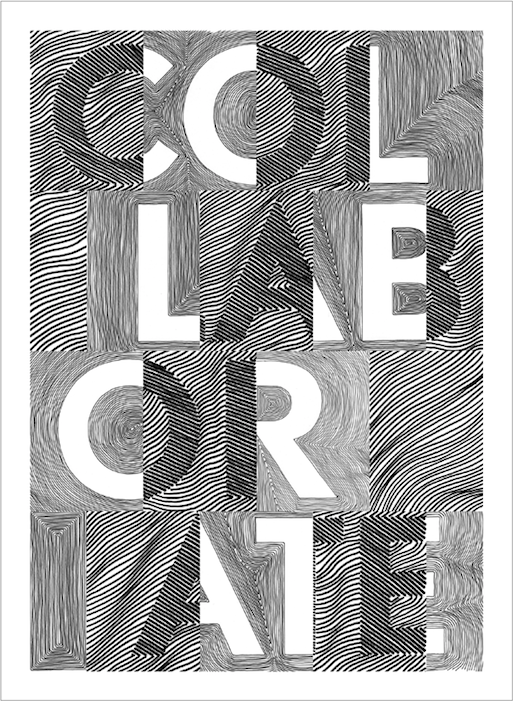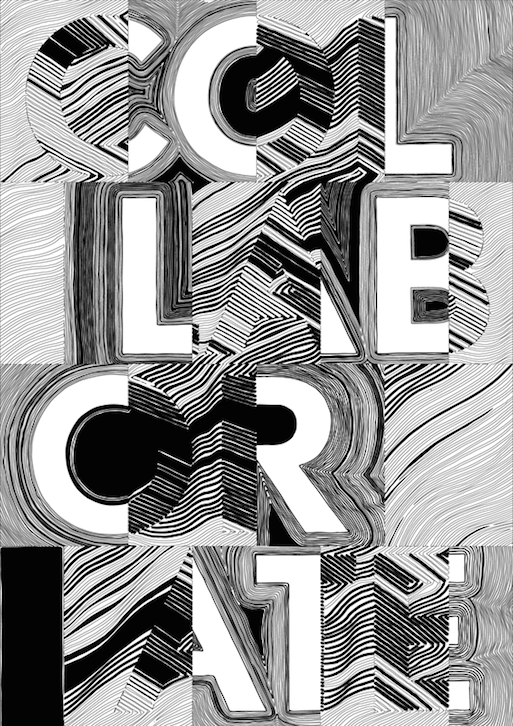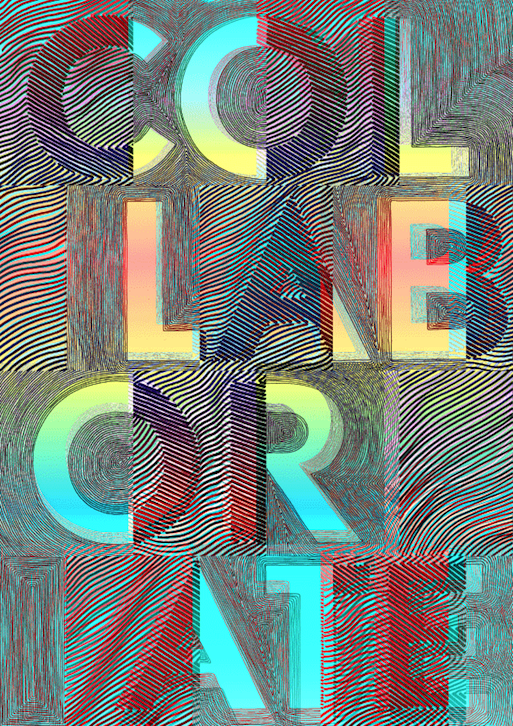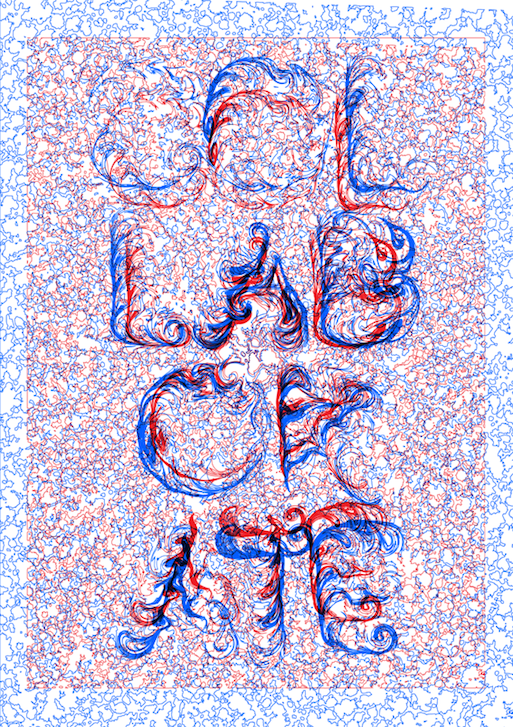
Suzanne Bakkum and Koos Breen are a league of their own
He is into experimenting within his craft’s boundaries, confronting the limits of the medium. She is concerned with pattern and texture. They both like to create typographic projects from complex arrangements. Suzanne Bakkum and Koos Breen met at the Royal Academy of Art in The Hague, the Netherlands, where they both studied Graphic Design and graduated last July (2014). Collaborate is their first project they collaborated on. Wallpaper magazine featured them on it’s Graduate Directory for 2015. “Today’s graphics graduates are faced with the daunting task of finding their feet in a field that has expanded way beyond the tactility of two-dimensional media into a digital realm of virtual space and interactivity” writes Jonathan Bell on the curated portfolio of excellence in Visual Communications. So when TYPEROOM asked them to reflect on this collaboration, they responded instantaneous. This is the story of their design partnership in their own words.
"Hello! We are Koos Breen and Suzanne Bakkum. We met at the Royal Academy of Art in The Hague, the Netherlands, where we both studied Graphic Design and graduated last July (2014). Collaborate is the first project we collaborated on, way back in 2012. We were asked by Typeroom to reflect on this collaboration.
K: How did we ever get started on this project?
S: It all started with Bruce Mau…
K: Oh, yeah. It was an assignment for Typography class, taught by Pieter Boddaert: design a poster based on one of the rules of the Incomplete Manifesto for Growth.
S: You picked rule number 16. Collaborate: The space between people working together is filled with conflict, friction, strife, exhilaration, delight, and vast creative potential. You asked me if I wanted to collaborate with you.
K: It was the perfect excuse to work together, because I thought you were the bomb.
S: Haha I was very honored. :)
K: Haha. Don’t mess with me.
S: I’m not messing with you, I’m being dead serious.
K: We decided to create a poster every week, and they would represent different ways of collaborating. We gave ourselves one hour per step.
S: Every week we would come up with a number of rules. We could design ‘freely’ within these rules and work separately from each-other.
K: I think rules are necessary to be able to work together if you haven’t before. Otherwise it’ll turn into a battlefield. Which it did.
S: It did! But maybe we should start at the beginning.
K: The first poster, I don’t even want to look at it. It was so bad. Unbelievable. Are we really publishing this?
S: It’s so bad! Looking back I like the sketches better than the final result. Which rules did we apply to this one?
K: We agreed we wouldn’t see each other’s work in advance. We would both make a sketch of the word “collaborate”, and then just superimpose them. Something we wouldn’t usually do.
We didn’t really collaborate. We just hoped the two layers would create something cool together, but the result was saddening.
But yeah – how could you make a good poster in a couple of hours?
S: I believe you can make a good poster in a couple of hours, but it’s a big gamble for each to make typographic posters separately and then superimpose them. The result wasn’t well-thought-out, and what came out was totally random.
K: I hate random.
S: Hahaha, I know!
--
S: Anyway, on to the second poster.
K: The second poster had us warring. I think we had agreed that one of us would start, work on it for an hour, email it, and then the other would work on it for an hour and send it back. We would do this four times and then it would be finished.
But we hadn’t talked about whether or not we could undo each other’s steps.
S: You took the first step; deciding the typo should read COL LAB OR ATE which was something from the first poster. We stuck to that.
K: I like weird breaks.
S: And those Sottsass portfolio patterns.
K: Oh, yeah, I wanted the typography to take shape from that pattern. Were you the one that brought in the depth?
S: No.
K: What? Then what did you do?
S: Hahaha, I made outlines of the Sottsass pattern – in the second step.
K: Yeah! That was a good step.
S: You applied depth in the third step, and then I smashed that poster to pieces, remember? You know why?
K: Oh man, I hated when you did that. I didn’t get it at all.
S: It’s because I had kerned the letters, but you didn’t keep that in step 3.
K: Hahahaha, seriously? You cut up the poster because I didn’t pay attention to you?! Haha!!
So you messed it up. I never understood. I thought it was a serious step.
S: It sort of reminded me of glass anyway, so I thought it would be cool to smash it to pieces. Also visualizing part of the rule – “(...) working together is filled with conflict, friction (...)”. But in the end we chose to go with the poster from step 3, with just the depth. I thought that was the best one out of that week’s versions, because you really get sucked into the poster.
K: I think a simple idea usually works the best.
S: Yeah exactly, don’t put too many ideas into one poster.
--
S: Okay on to poster 3.
K: It was a good one. I still like it a lot, even after two years.
S: Yeah, I agree. I think it’s the best one in the series, because it strongly visualizes the “collaborating”-element in one image.
K: First we took the basic typography we had established in the first 2 posters and cut the poster into pieces and numbered them. You got the odd numbers, I got the even numbers. Then we were free to do what we both wanted. We had two rules: we had to draw on the pieces by hand, and it had to be black and white.
S: So we didn’t know what the other would do.
K: It was hilarious when we saw what the other had done. You had done almost exactly what I had, except with a chunky marker.
S: Yeah, and a little less precise than you. I remember at first I didn’t feel very confident of my solution. I thought it was pretty crappy, but when we matched up all the pieces it really all came together.
K: It already looked pretty good in black and white, but it was still kind of boring maybe. So we both made a new digital version with the analog black and white one as a base.
S: It was exciting to play around with. The combination of analog and digital is not something self-evident. I’m not sure I how to explain. Koos?
K: Nearly everyone works digitally. That means the computer also dictates the form. This doesn’t have to be a problem, but a lot of things start to resemble one another because of it. The signature, the hand of the artist tends to get lost in the process. When you make analog work and apply it in a poster, your work looks more specifically yours, it bears your hand.
S: Exactly. I always think it’s a shame when you can look at a poster and tell what software was used to make it. Unless it’s someone who is actually trying to find the limits of the software and break them. If someone is applying the software in unexpected ways, they’re really influencing the process and outcome. Pushing the boundaries of design.
K: I agree.
S: We agree! :o
--
K: Haha. But not always. That last poster (no. 4) we did together is crap. What do you think?
S: I think it was a fun experiment, which resulted in something fun, but it’s not finished. That last poster never really became a finished poster, it looks like a sketch.
K: Now it’s just an Illustrator gimmick. And even with those terrible fake letters that were so fashionable a few years ago.
S: Maybe we wanted to make a real hipster poster. ;)
K: Haha, maybe you did. I definitely did not.
S: Haha, yeah right, like I was the hipster one. ;)
K: The idea was just too convoluted. That never works. Keep it simple.
S: Maybe we should explain what the idea was.
K: I don’t know if I can. We can try.
S: We both reduced typography to its vector points, and sent these to each other. The idea was to reconnect the vector points and develop new typography. But we didn’t manage much more than that, it still needs another step.
K: Now it just feels forced. But Suus, are we seriously letting all of these posters get published? Even though we don’t even like some of them?
S: There’s one that we do like, right? I think it’s cool to show people the other stuff and that it’s really an experiment – they also get to see the failures.
K: It’s interesting to see how the project’s title is reflected in the process.
“The space between people working together is filled with conflict, friction, strife, exhilaration, delight, and vast creative potential.”